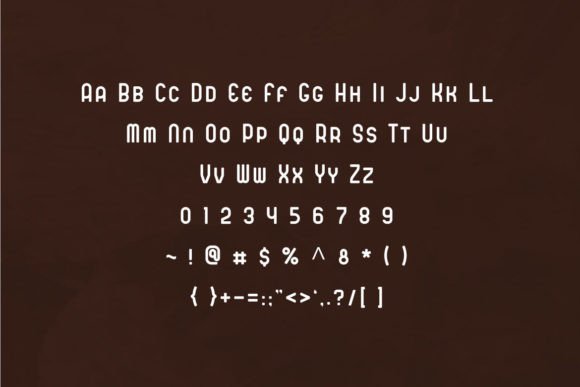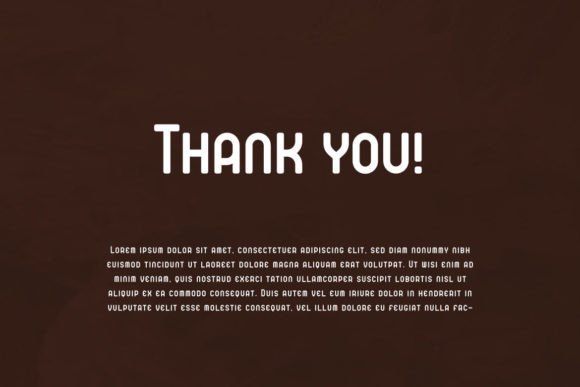
The Designer’s Delight: Exploring the Bosman Rock Font
I’ll never forget the time I was working on a project for a client who wanted a modern, edgy look. I had spent hours browsing through font libraries, but nothing seemed to fit the bill. That was until I stumbled upon the Bosman Rock font. Its clean and assertive sans serif style immediately caught my attention, and I knew I had found the perfect fit. In this article, I’ll share my experience with the Bosman Rock font, its features, and how to make the most of it in your designs.
A First Impression: What I Love About Bosman Rock
The Bosman Rock font has quickly become a favorite in my design toolkit, and for good reason. Here are some of the things that I love about it:
- ✨ Clean and assertive design: The font’s sans serif style gives it a modern and sleek look that’s perfect for a wide range of designs.
- ✅ Unique style: Bosman Rock has a natural and unique feel that sets it apart from other sans serif fonts.
- 💡 Versatility: The font’s flexibility makes it suitable for various design projects, from logos and branding to headings and body text.
While the Bosman Rock font is an excellent choice for many designs, there are a few minor quirks to be aware of:
- 🤔 Limited italic styles: The font’s italic styles are not as extensive as some other fonts, which may limit its use in certain design projects.
- ⚠️ Glyph compatibility: Some glyphs may not work seamlessly with all platforms or software, so it’s essential to test the font before finalizing your design.
The Story Behind Bosman Rock
The Bosman Rock font was designed with the goal of creating a clean and assertive sans serif font that’s both unique and versatile. The designer aimed to craft a font that would be suitable for a wide range of designs, from modern logos to headings and body text.
| What type of designs is Bosman Rock best suited for? | Bosman Rock is a versatile font that’s suitable for various design projects, including logos, branding, headings, and body text. |